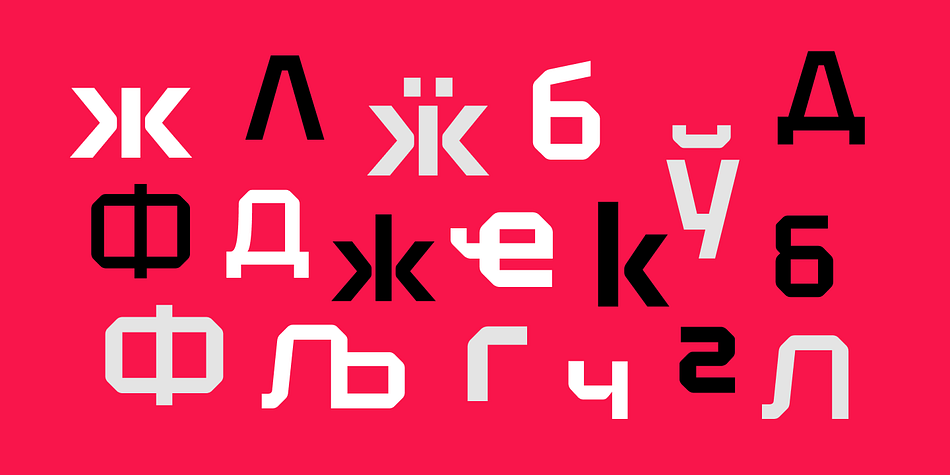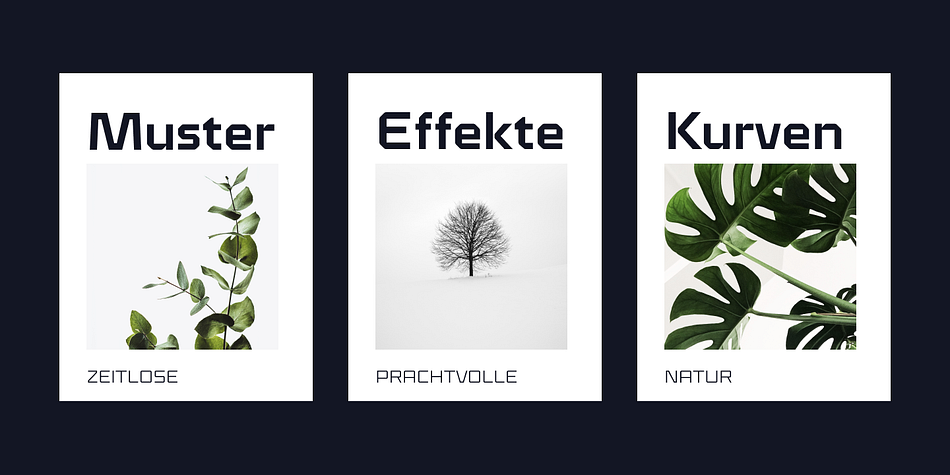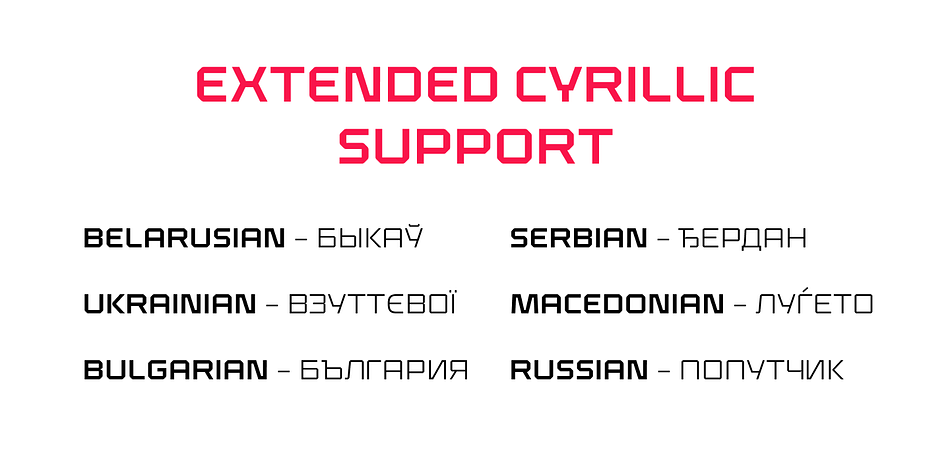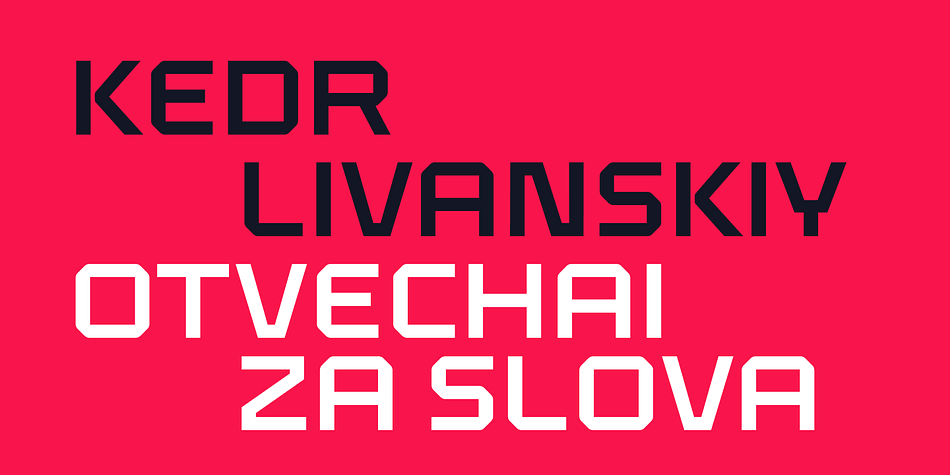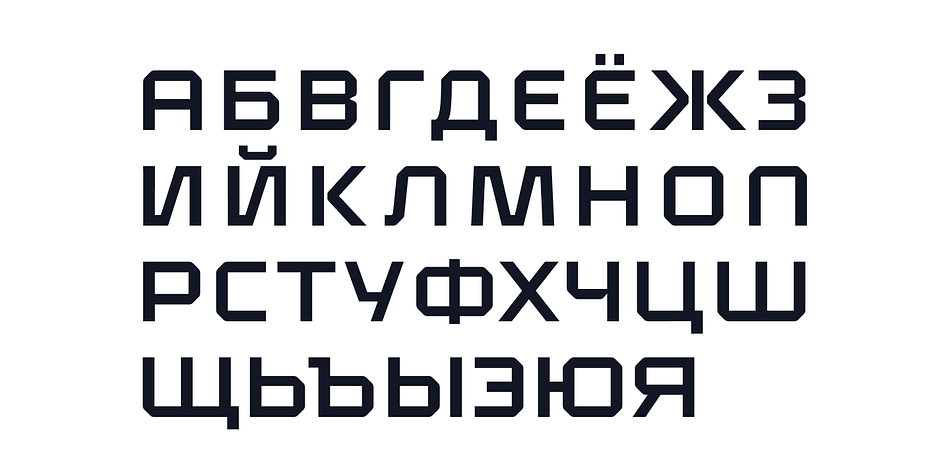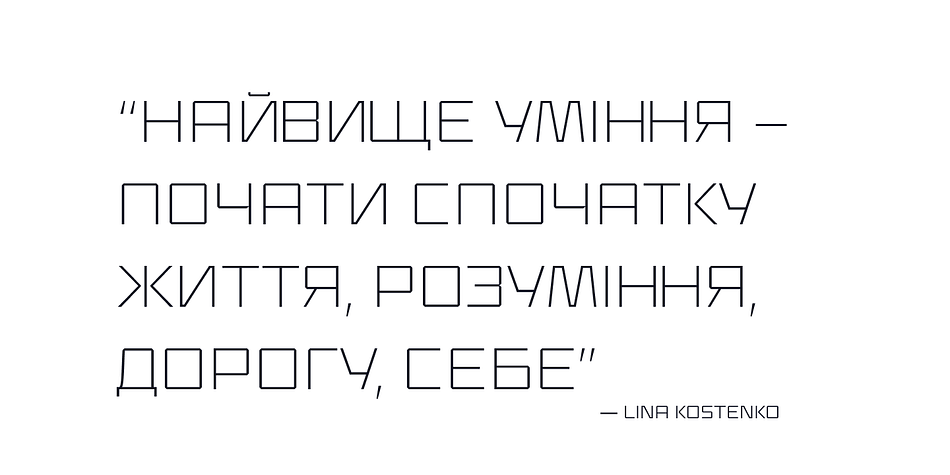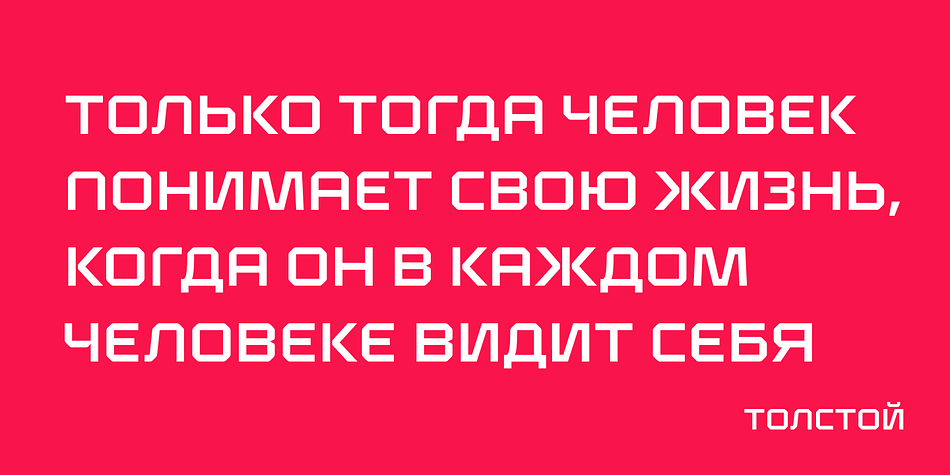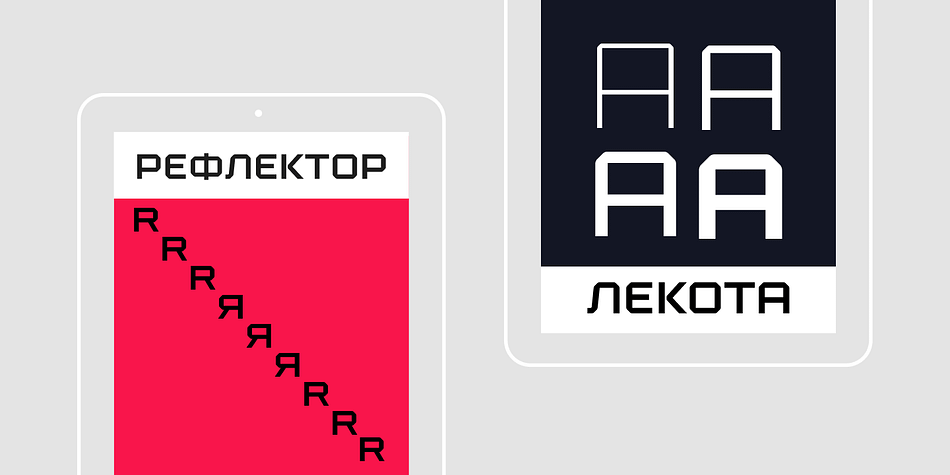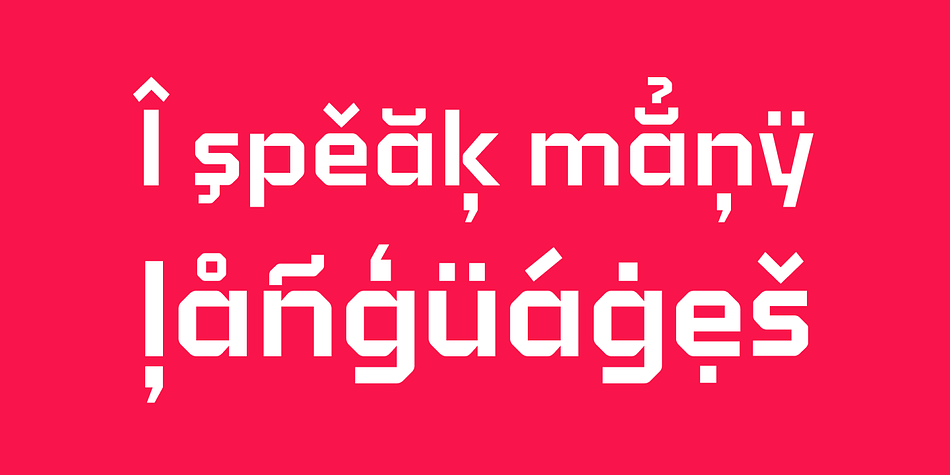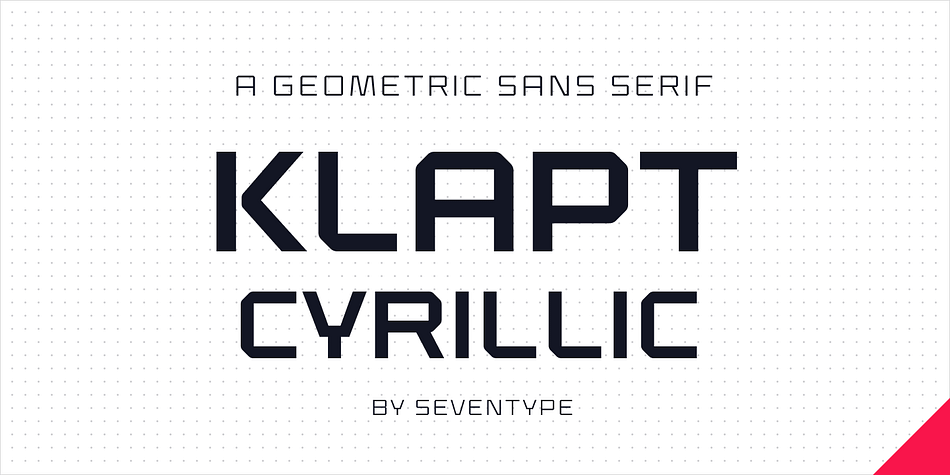
Designed by Vitória Neves, Klapt Cyrillic is a display sans font family. This typeface has four styles and was published by SevenType.
Klapt Cyrillic is a geometric sans serif family that is soft on the outside and sharp on the inside.
This font family, of four weights, includes an extended character set supporting most Latin languages and extended Cyrillic — even Vietnamese, Serbian, Bulgarian and many more.
Klapt Cyrillic can be bold or very elegant and is well suited for designs ranging from branding and corporate identity to editorial design or web design.
It has a timeless style which and is great for display purposes, especially for headlines, posters, magazines, book covers, logos… you name it!